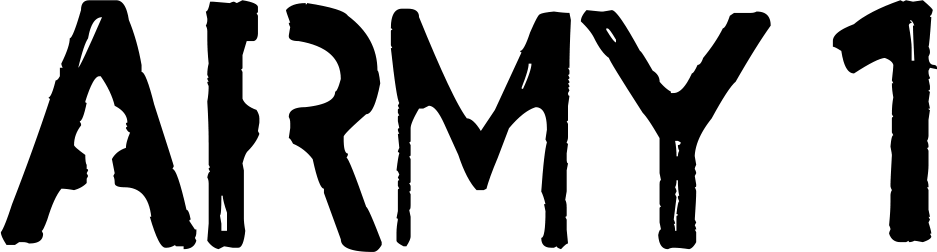
Army 1 Font
Armi 1 is vintage, worn, and corroded. It is a stencil font. It comes in handy when you want your brand to evoke classic, 80s, and 90s vibes in your target audience. Armi 1 comes with uppercase letters and numbers in the…
Armi 1 is vintage, worn, and corroded. It is a stencil font. It comes in handy when you want your brand to evoke classic, 80s, and 90s vibes in your target audience.
Armi 1 comes with uppercase letters and numbers in the character collection. You can use this distressed stencil font in retro TV series, and TV programs, vintage-style print T-shirts, flyers and posters, and many more areas!